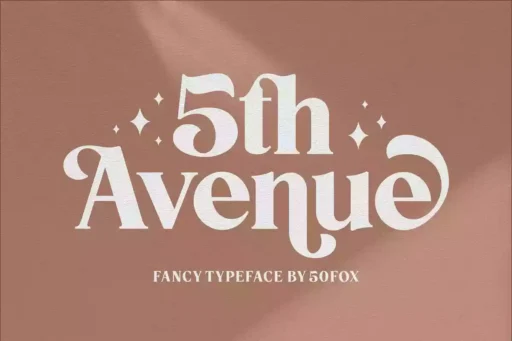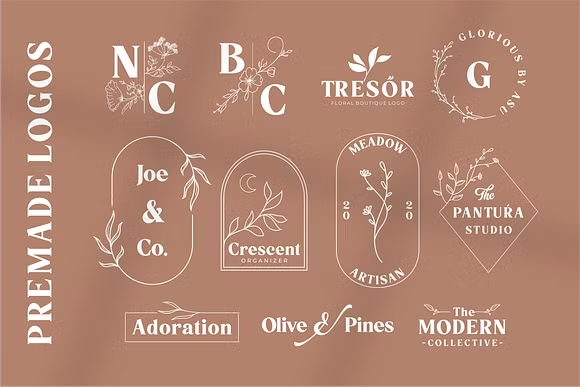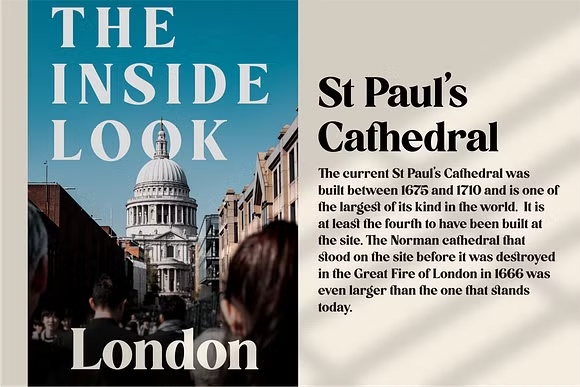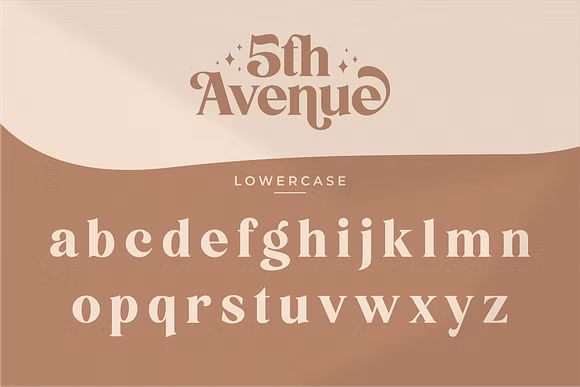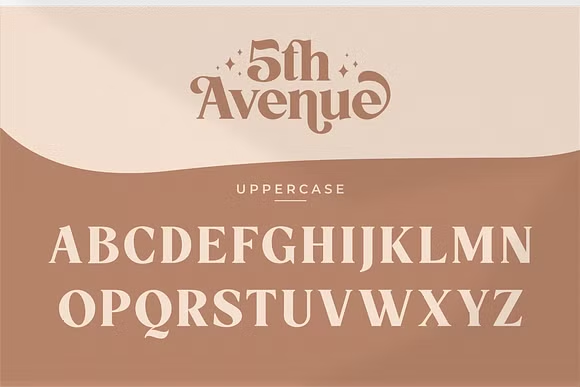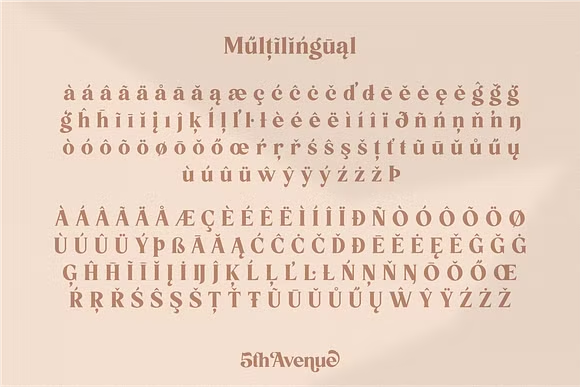
5th Avenue Font
Introducing 5th Avenue font, a sophisticated and stylish serif font family suitable in various designs while effectively capturing the essence of luxury fashion. This new font set by 50Fox is ideal for enhancing any design project and gives it that mature look that is desired.
Fifth Avenue reflects a style currently found on the fashion runways and brings this style to typography without forgetting the basics. This combination makes it easier for designers to get a wide variety of additional characters and ornamental designs, which open up a whole world of possibilities. For a more modern appearance, 5th Avenue gives the versatility required to accomplish your design goals.
5th Avenue comes with OpenType features that make it very useful for designers. Here are some of them: Some of the features that are evident include the following: There are many different types of characters that allow the typographic expression to be distinctive. Also, the font has some ornaments that can be of great use when one needs to give a particular design a little more creativity. Another great feature is that there are specific ligatures that connect the letters and look amazing, and you can give a unique look to your work. These features create a complete set of tools that are useful in creating advanced and innovative designs.
With 5th Avenue, it is very simple to find a good typography style. It is another typographic technique that can alter the look of text, and this is why it is possible to create either a tight or loose composition. This versatility enables 5th Avenue to handle various design conditions and purposes in the built environment.
Additionally, it contains 11 contemporary, ready-made logos for 5th Avenue that will help you easily and effectively integrate the identifier into your designs. The logos below are great examples of what you can do with the font and adapt it according to any business, giving your projects a professional and elegant look.
5th Avenue provides language assistance in many languages. It supports 27 languages including Afrikaans, Albanian, Catalan, Croatian, Czech, Danish, Dutch, English, Estonian, Finnish, French, German, Hungarian, Icelandic, Italian, Latvian, Lithuanian, Maltese, Norwegian, Polish, Portuguese, Slovak, Slovenian, Spanish, Swedish, Turkish, and Zulu.
5th Avenue Font is a Serif Fonts font that brings a professional and versatile look to your projects. Introducing 5th Avenue font, a sophisticated and stylish serif font family suitable in various designs while effectively capturing the essence of luxury fashion.